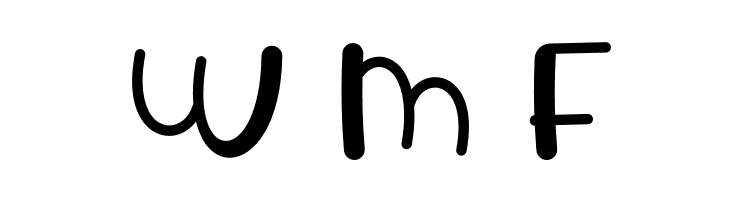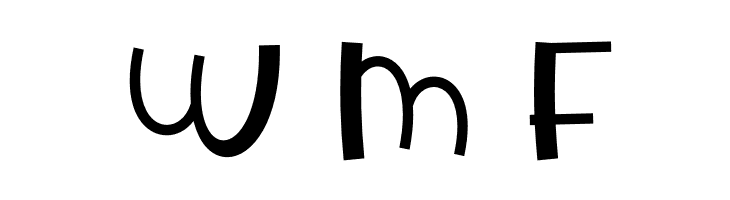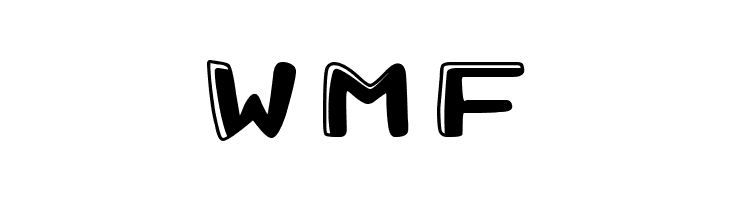
Playing Snow Font
Font by Scratchones
A bold, playful handwritten font with rounded edges and thick strokes.
Rosmary Font
Font by Skiiller Studio
A bold, handwritten font with a dynamic and energetic style.
Magazine Font
Font by Scratchones
A playful, handwritten font with dynamic strokes and a casual feel.
Retroline Font
Font by Scratchones
A lively and playful handwritten script font with bold strokes.
BloomingHeart-Regular Font
Font by Lunas Type
An elegant script font with flowing, interconnected letters and a handwritten style.
Soundtrack Font
Font by Mariyana
A dynamic, cursive script font with elegant, flowing strokes.
Tour To Amsterdam Font
Font by Scratchones
A playful and dynamic handwritten font with fluid strokes.
Easy-free Font
Font by baybilson
A cursive, handwritten font with a casual and elegant style.
Exchange Font
Font by Sayed Musnazi
A flowing, cursive script font with elegant, interconnected characters.
Easter Holiday Regular Font
Font by Mabhal Studio
A playful, whimsical script font with interconnected letters and a handwritten feel.
Easter Holiday Shadow Font
Font by Mabhal Studio
Bold, playful font with a shadow effect and hand-drawn style.
Jhon Max Font
Font by MJType
A playful, casual handwritten font with smooth, flowing lines.
Sweets Holly Font
Font by Maulana Creative
A fluid and elegant script font with interconnected, graceful strokes.
Mj Font Regular Font
Font by JM Dulay
A bold, playful handwritten font with an artistic, irregular style.
LUCYFARMRegular Font
Font by Regulerstudio
A bold, playful handwritten font with a casual and friendly style.
Syaquita Font
Font by Saeful Bahri
An elegant, artistic script font with a whimsical, handwritten style.
Canva Sans Display Bold Font
A bold, modern sans-serif font with clean lines and rounded edges.
Canva Sans Display Medium Font
A modern, geometric sans-serif font with balanced proportions and consistent stroke width.
Canva Sans Regular Font